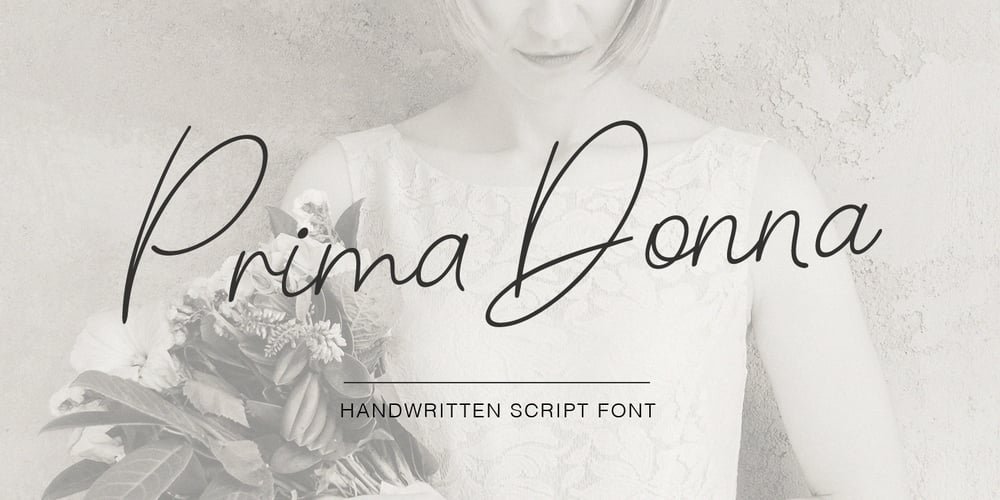
Prima Donna Font Family was designed by Pavel Larin and published by Larin Type Co. Prima Donna contains 1 styles and family package options. Prima Donna is a beautiful font that is light and elegant, and will emphasize your individuality in any project. You can also use them to create a logo or use for small businesses, branding, t-shirts, book covers, stationery, marketing, blogs, web site, magazines, and more. This font includes a basic set of letters and a complete set of alternatives set as well as numbers, fractions, and basic punctuation. This font supported PUA encoded.